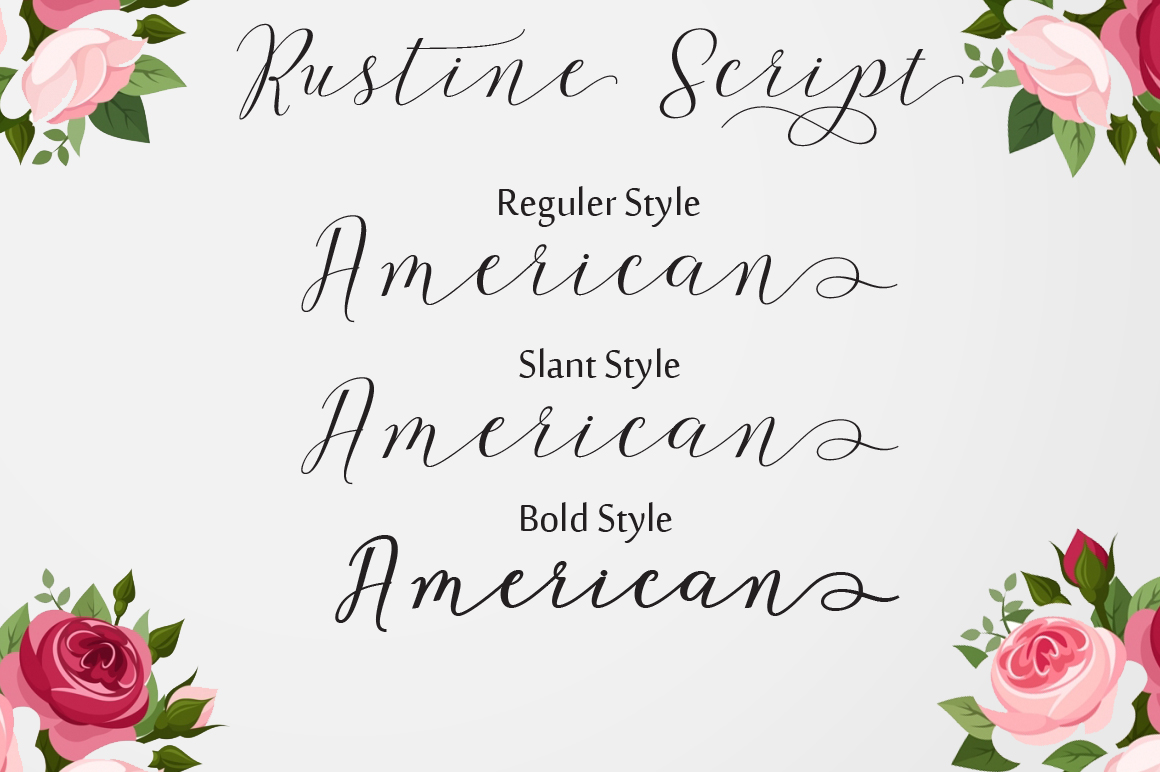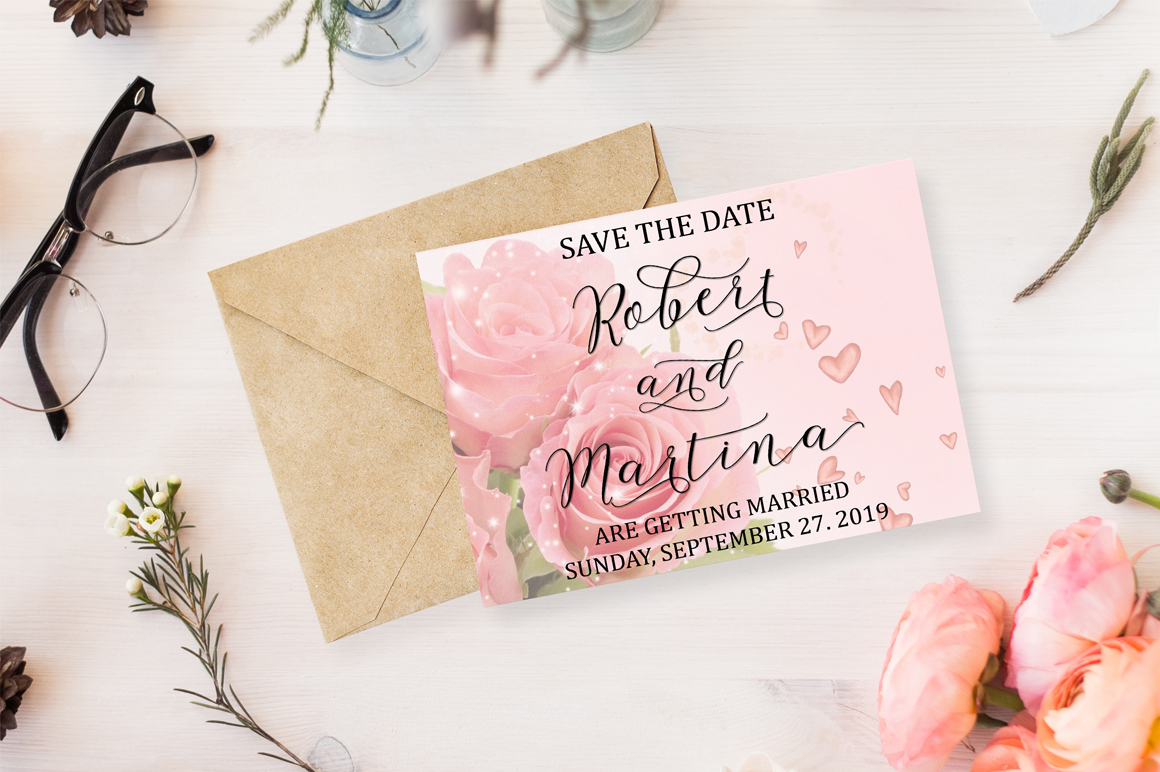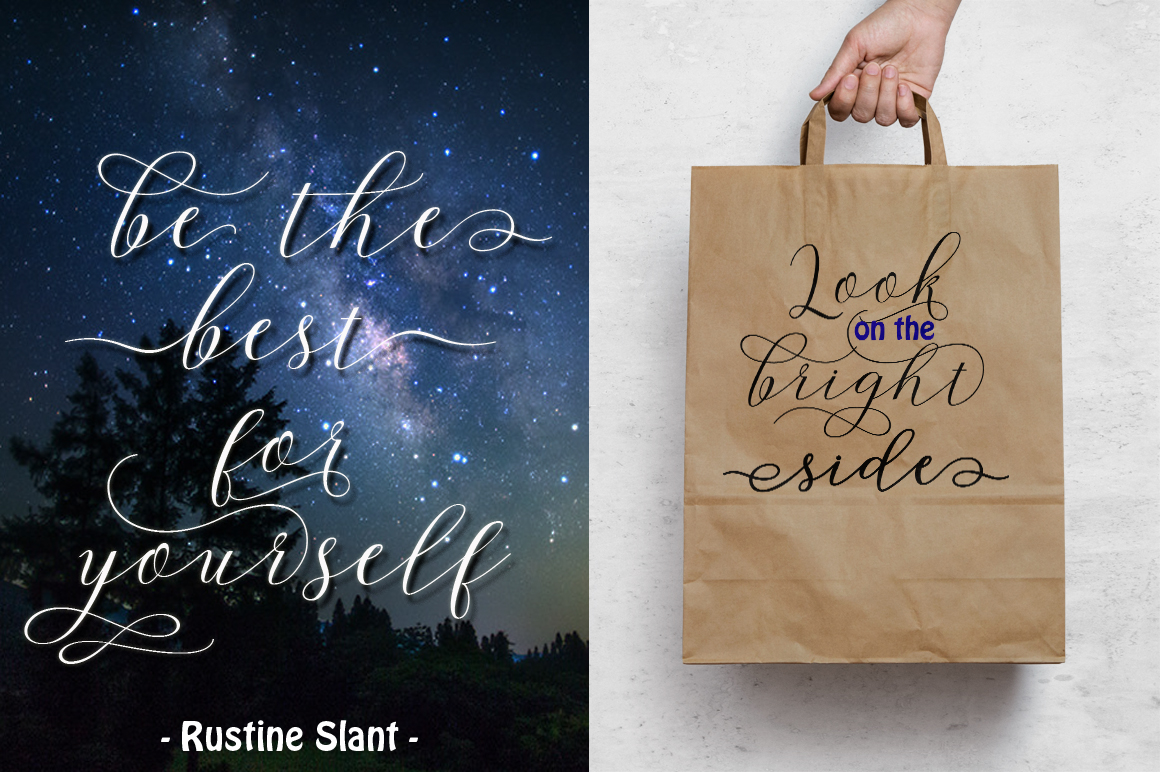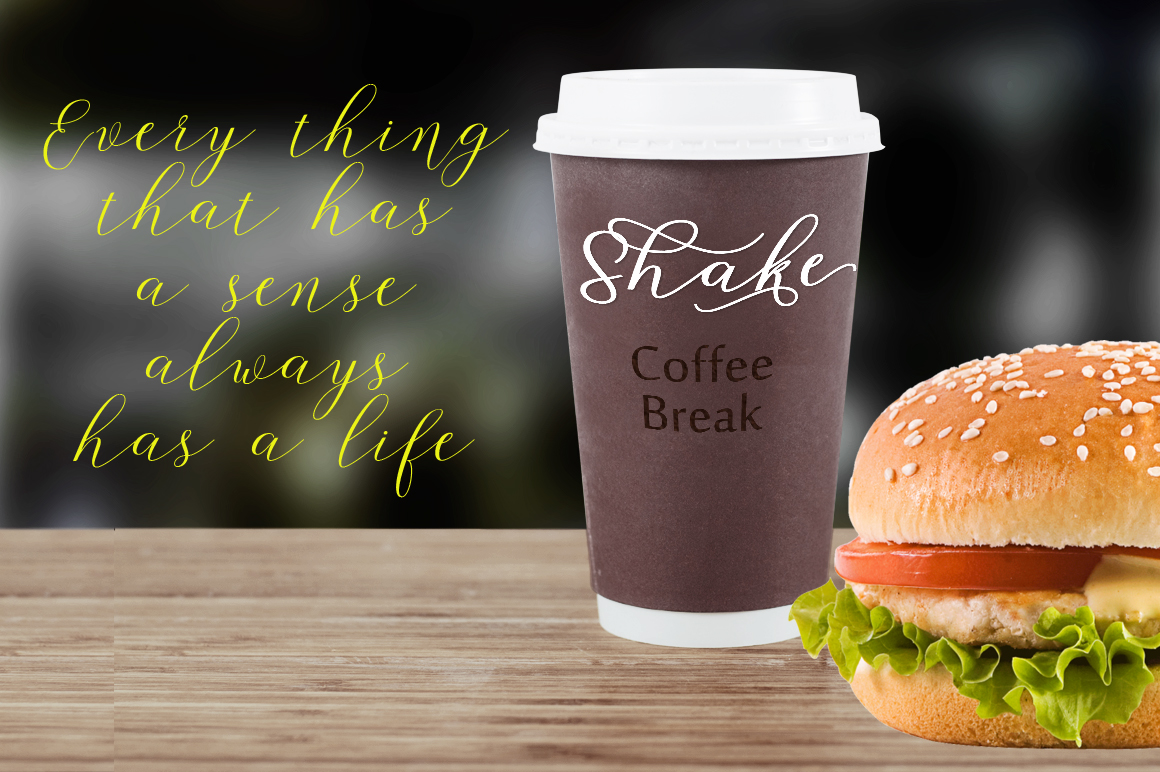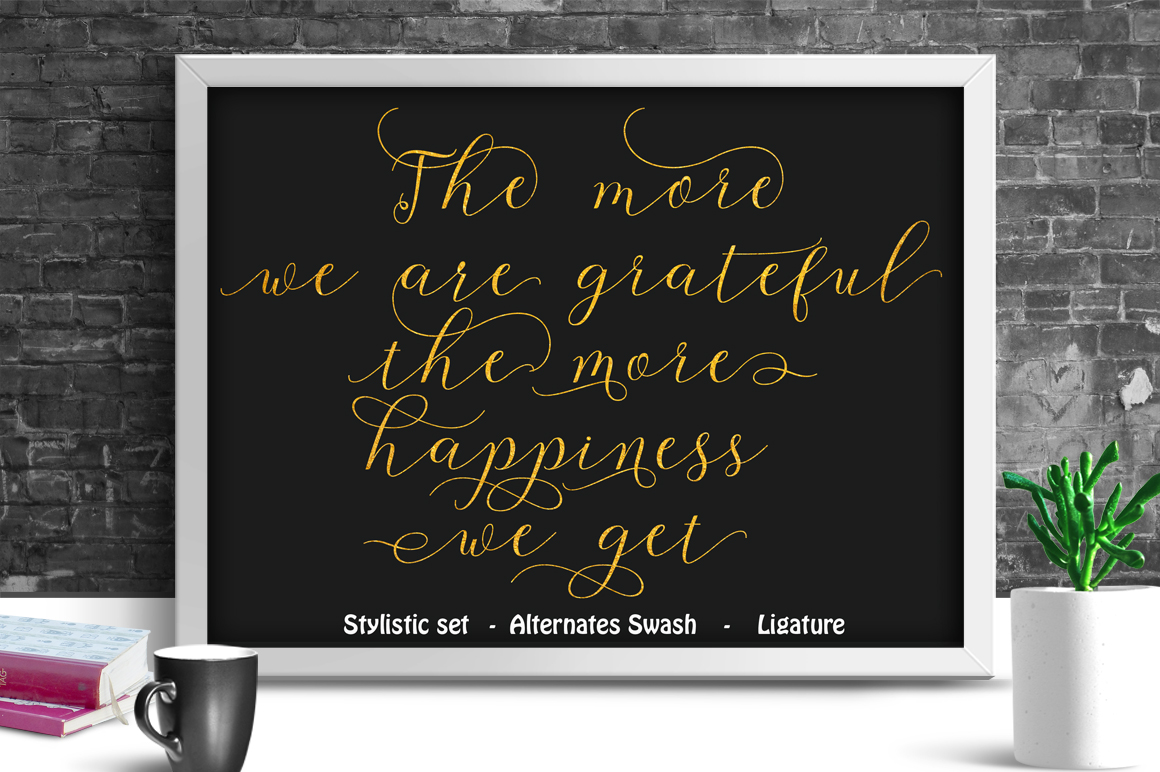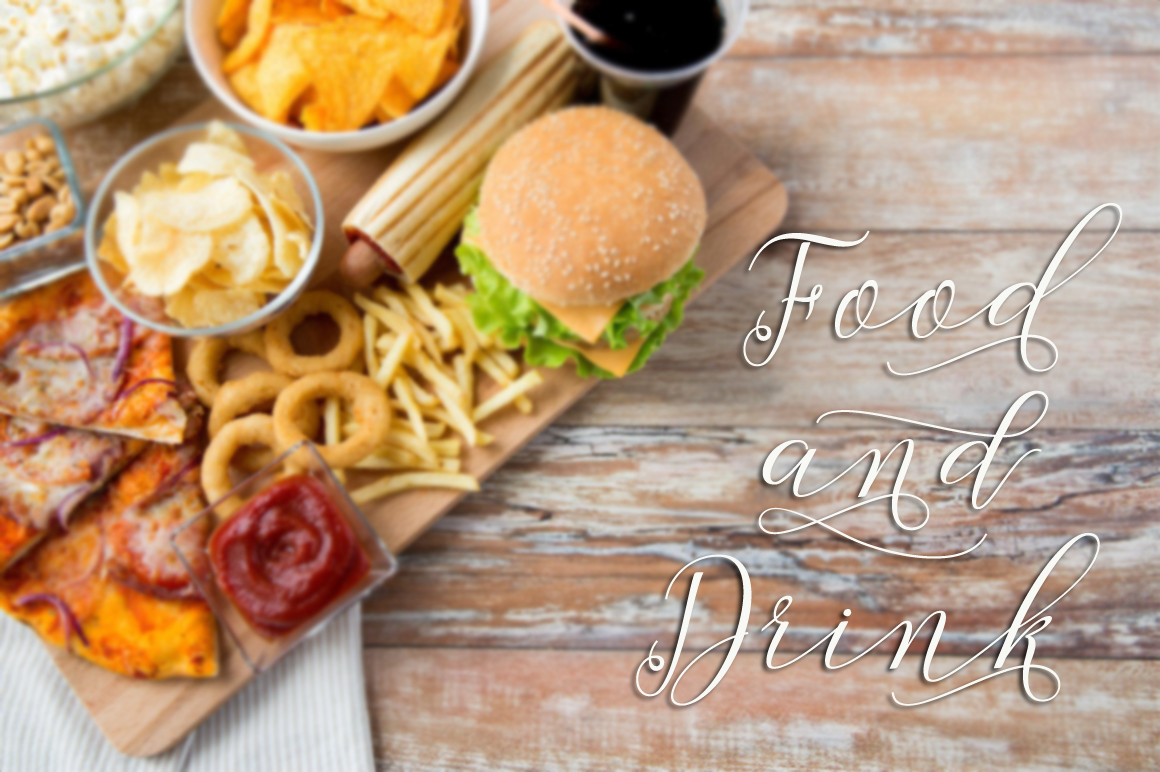
Introduction to Rustine Font
Have you ever found yourself stuck in a creative rut, scrolling through your font library in search of the perfect addition to elevate your project? I know I have! The perfect font can make all the difference in bringing your vision to life, and that’s exactly where the Rustine Font comes in.
This stunning, modern handwritten script is a game-changer for any designer looking to add a touch of elegance and sophistication to their creative project. With its smooth, decorative letters that dance across your screen, the Rustine Font is sure to be a valuable addition to your design resource arsenal.
Key Features of Rustine Font
- Rustine Font is a high-quality design resource ideal for creative projects.
- Features a transparent background, making it perfect for use on any background.
- This unique font has a distinctive, hand-drawn feel that adds a touch of elegance to any design.
- Rustine Font comes in a single weight and is available in 5 different styles (Regular, Italic, Bold, Bold Italic, Outline).
- The font has a resolution of 300 DPI and is suitable for use in both print and digital applications.
- Perfect for use in logos, branding materials, and other design elements where a touch of sophistication is required.
Honest Review: Rustine Font
I recently stumbled upon the Rustine Font while searching for a high-quality design resource for a creative project. I was pleasantly surprised by the font’s versatility and overall aesthetic.
Here’s what works well: ✨ The Rustine Font features a unique blend of modern and vintage elements, making it an excellent choice for designers who want to add a touch of sophistication to their work. The font is highly customizable, and it’s available in various weights and styles, allowing users to tailor it to their specific design needs.
- Unique blend of modern and vintage elements
- Customizable and versatile
- Available in various weights and styles
One potential limitation is that the font’s background is not transparent, which may cause issues when using it on top of images or other design elements. ⚠️
To get the most out of the Rustine Font, use it in conjunction with a transparent background to create a clean and minimalist design. Experiment with different font sizes and styles to add visual interest to your project. You can also combine the Rustine Font with other design resources, such as images and shapes, to create a unique and eye-catching design.
The Rustine Font is ideal for a variety of design projects, including logos, business cards, and social media graphics. It’s also a great resource for creating high-quality designs for free download, such as brochures, flyers, and posters. With its high-quality design and transparent background, the Rustine Font is a valuable addition to any designer’s toolkit.